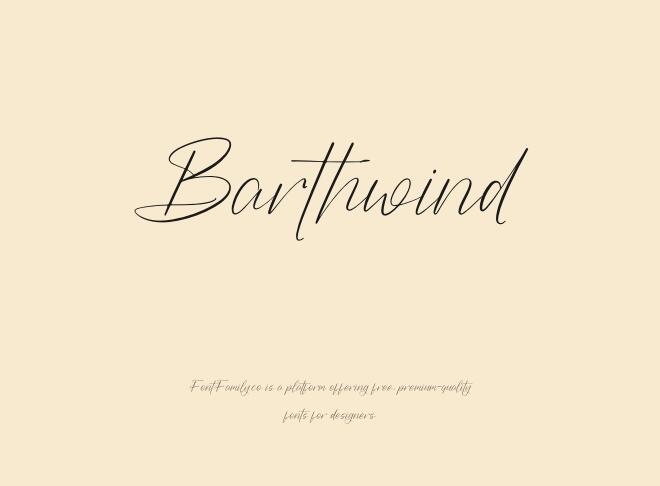
Barthwind Font
Barthwind Font is a playful, vintage-inspired typeface with a rustic touch. Designed by Hans J. Barth, this handwritten font offers a unique blend of retro charm and modern design sensibilities. It's perfect for adding a touch of personality to your designs without compromising readability. Its handwritten style is reminiscent of personalized notes and vintage posters, making it an excellent choice for branding, logo design, greeting cards, and even website headers. Although Barthwind Font stands out on its own, it also pairs well with sans serif fonts for a balanced design. Its versatility and unique style make it a must-have for designers looking to add a touch of rustic charm to their work. Download Barthwind Font today and elevate your designs to a new level of creativity and sophistication.